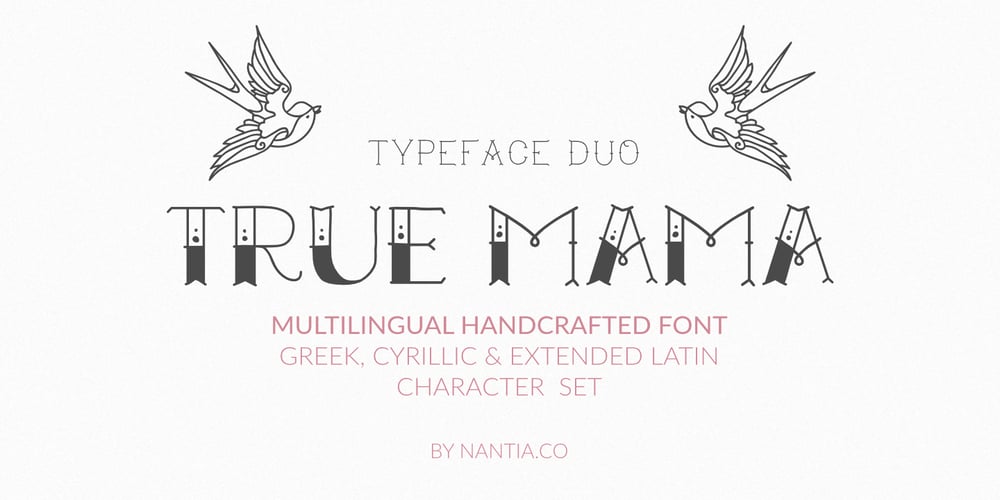
True Mama
True Mama font
True Mama Font Family was designed by Konstantina Louka and published by Nantia.co. True Mama contains 2 styles and family package options. With True Mama Cyrillic Greek Typeface Duo, you can recreate old-school lettering tattoo-inspired graphics on the spot! Not only this typeface duo includes one monoline typeface with uppercase and lowercase characters, but also one bold version with only uppercase characters. In fact, the typefaces are so easy to use because they complement each other. Also, this duo is perfect for recreating vintage old-school graphics.Of course, both typefaces support diacritics and an extended set of Latin, Greek, and Cyrillic character set. In addition, both typefaces have a set of 4 vintage illustrated tattoo extras, that you can find in the PUA section of the font.